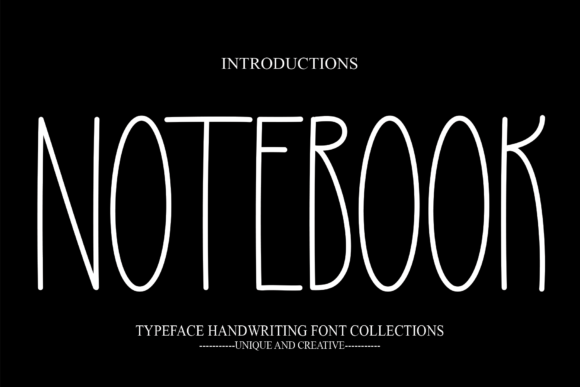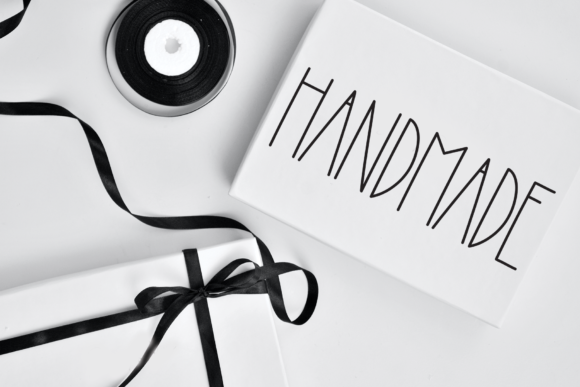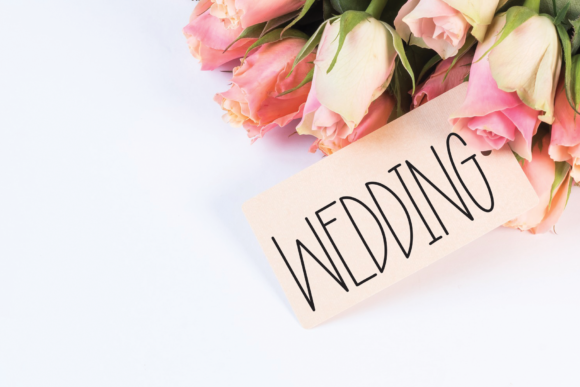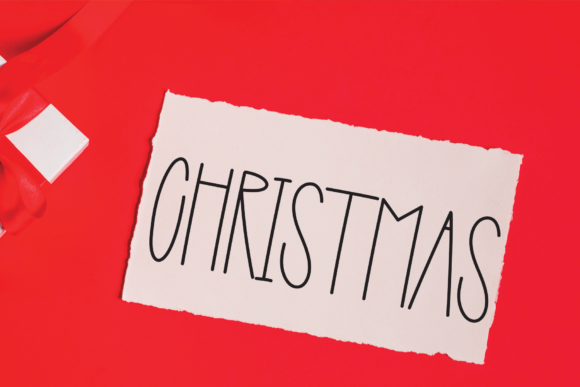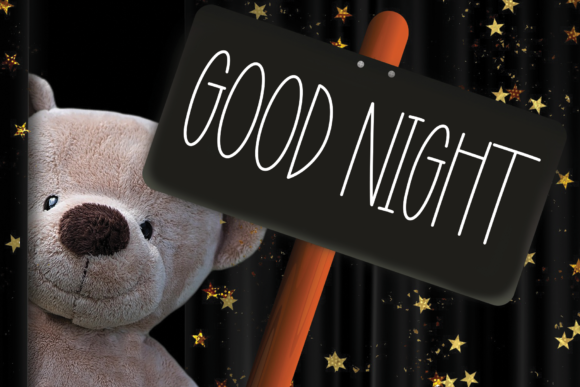
Notebook Font
About Notebook Font
Notebook is a thin and clean handwritten font. It can be used for various design ideas, both formal and informal. Use it confidently and you will like the results.